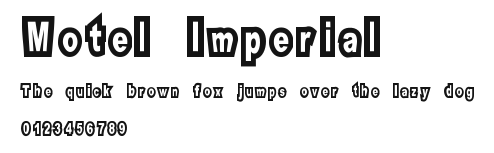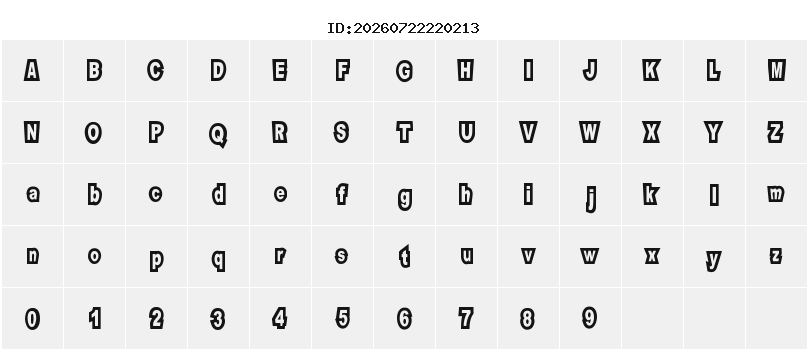
• Font Name: Motel Imperial
• Full Font Name: Motel Imperial
About Motel Imperial.ttf
Motel Imperial.ttf is a modern, elegant sans-serif font designed for ultimate readability and visual harmony. Perfect for branding, headlines, web design, and print materials.